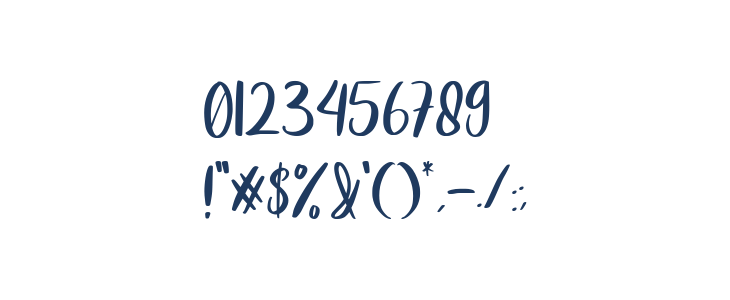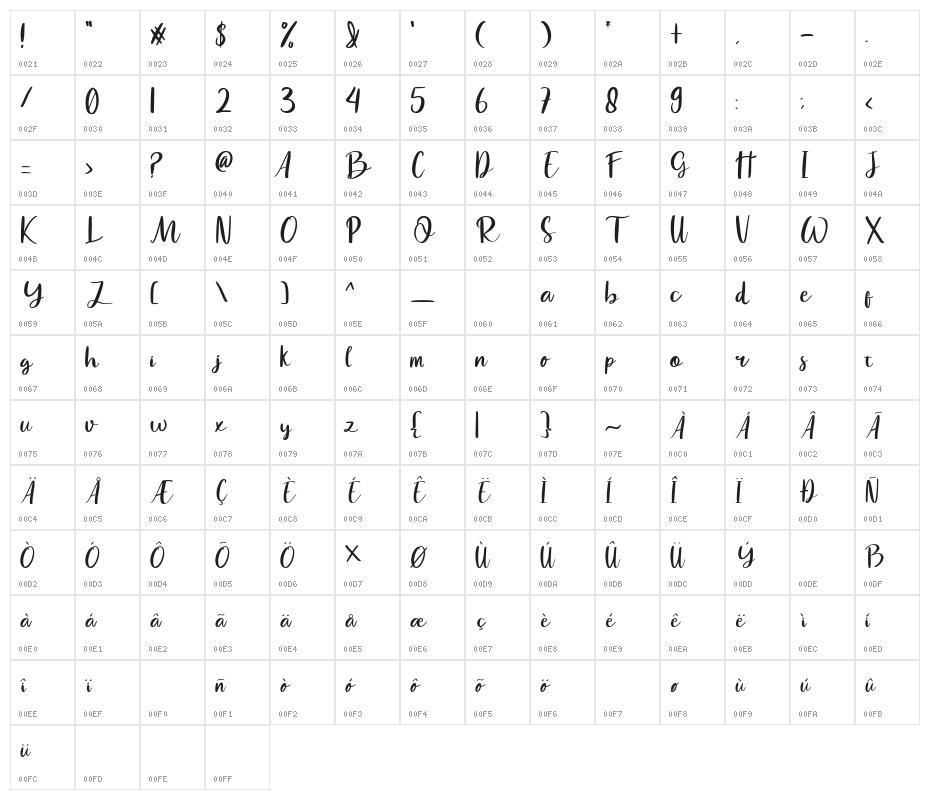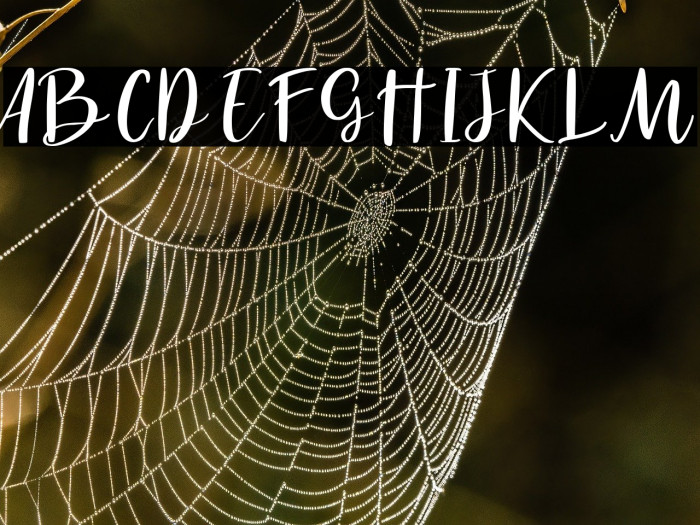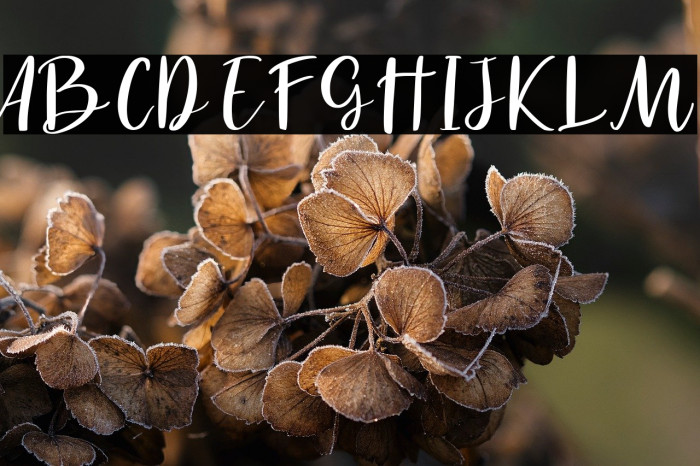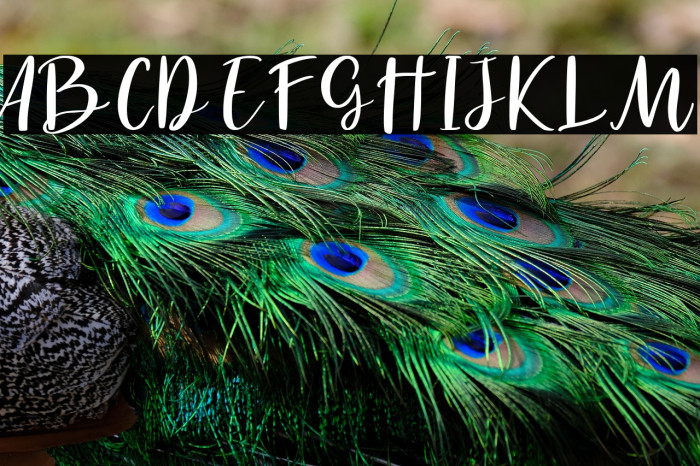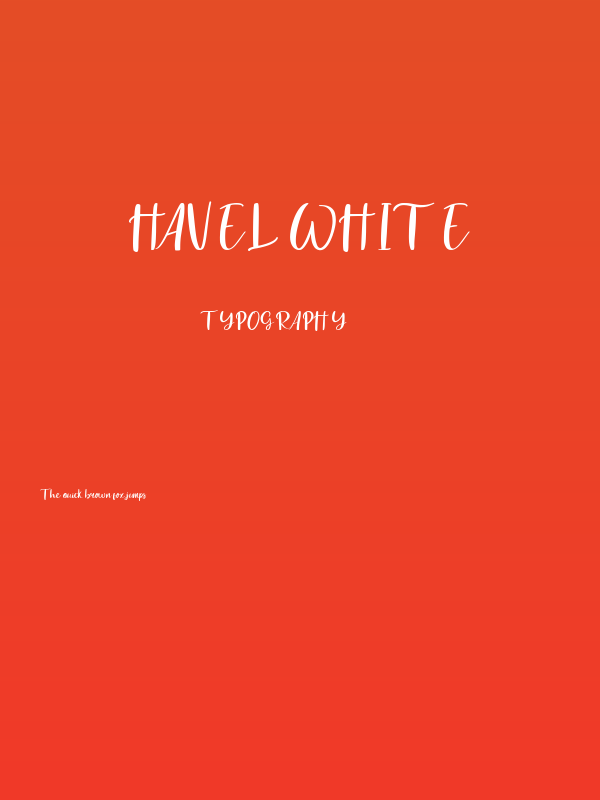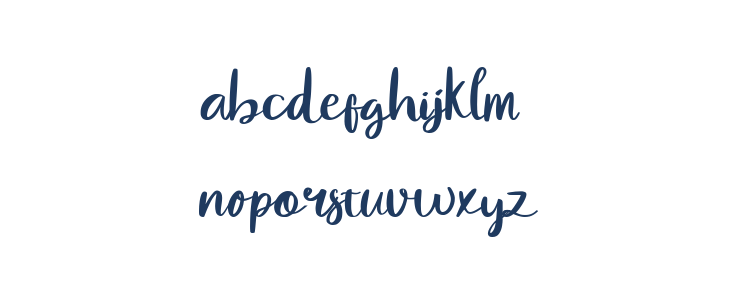
Havel White Font
Havel White Description
This font exhibits a lively and expressive style, characterized by its handwritten script appearance. The uppercase letters are elegantly crafted with a mix of thick and thin strokes, giving them a dynamic and flowing look. The lowercase letters maintain a consistent style, with smooth curves and a natural, casual feel. Numbers are bold and slightly slanted, adding to the playful nature of the font. Special characters are designed to match the overall aesthetic, ensuring a cohesive look across all text elements. This font is ideal for projects that require a personal touch, such as invitations, greeting cards, or branding materials.
Proposed ProjectsIdeal for invitations, greeting cards, branding, and any project needing a personal touch.